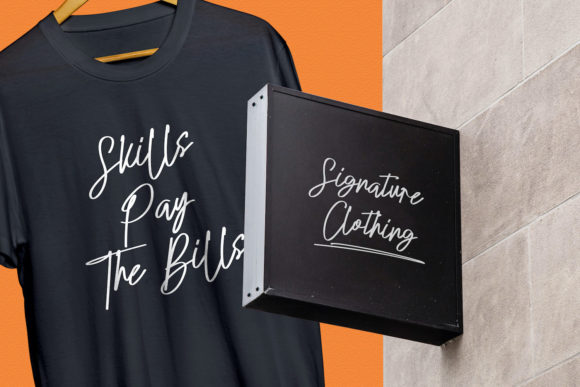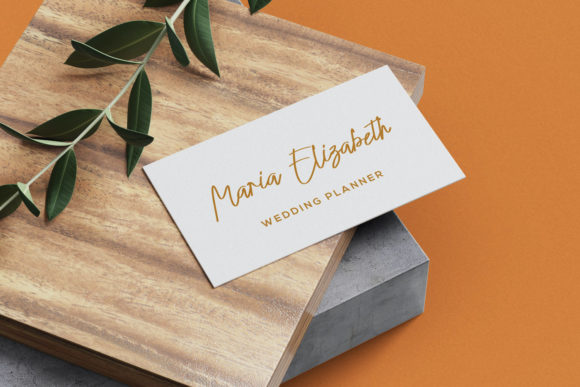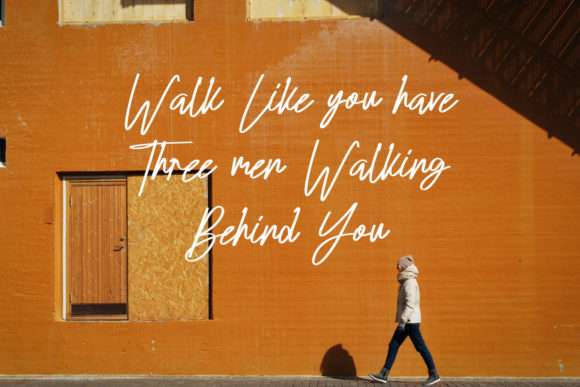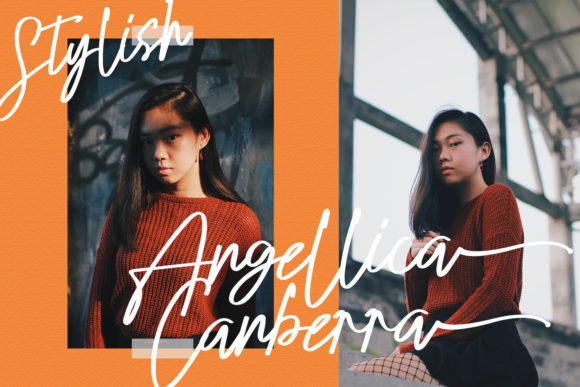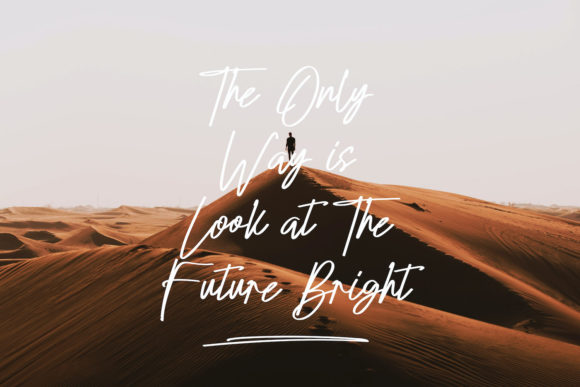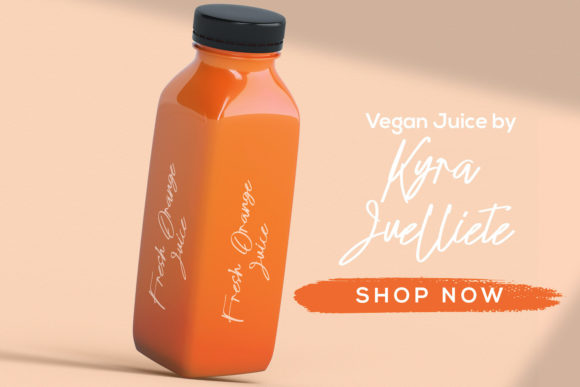
Introduction to Oyange Font
Oyange results out of a stunning pairing of a brush pen that makes it look incredibly endearing and authentic.
Use this gorgeous and unique script font to bring any DIY project to life .